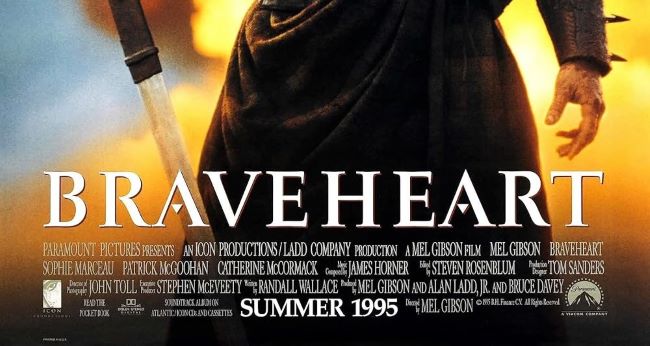
Braveheart Font
The Braveheart Font captures the spirit of courage, passion, and rebellion seen in Mel Gibson’s 1995 epic Braveheart. Just like the film’s portrayal of William Wallace and Scotland’s timeless fight for freedom, the typeface embodies strength and historical grandeur. Its bold, serif design reflects medieval craftsmanship, making it instantly recognizable and deeply evocative of the film’s legendary themes.
The original Braveheart Font was a custom design created for the movie’s promotional materials, combining stately elegance with a rugged medieval edge. Fan-made versions like the Braveheart Movie Font successfully recreate that same heroic and cinematic tone, perfect for posters, book covers, or historical projects. For similar typefaces, Trajan Pro and Cinzel offer a refined, classical aesthetic, while free fonts such as Uncial Antiqua or Cormorant Garamond bring a timeless, old-world charm.